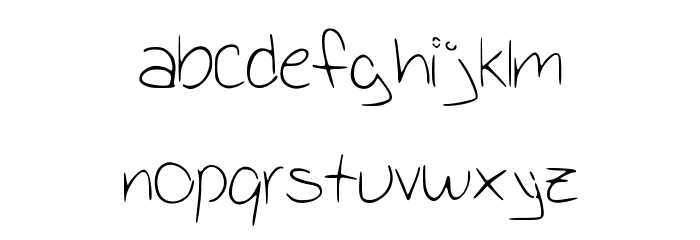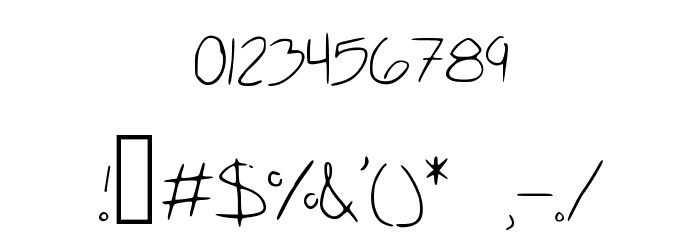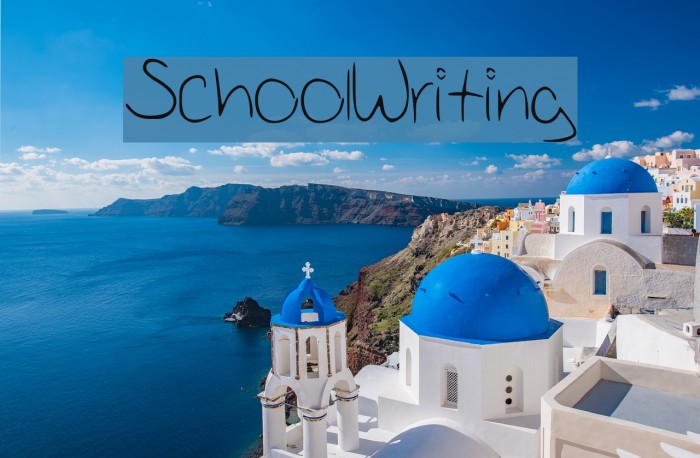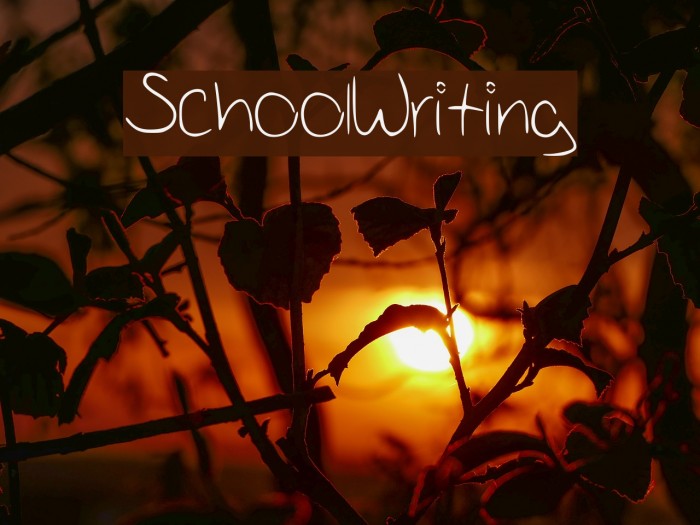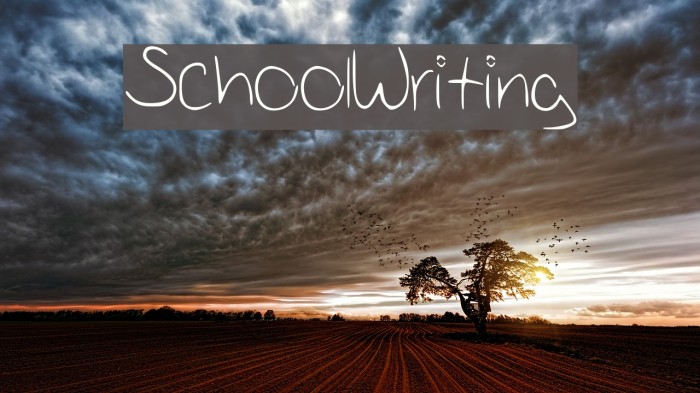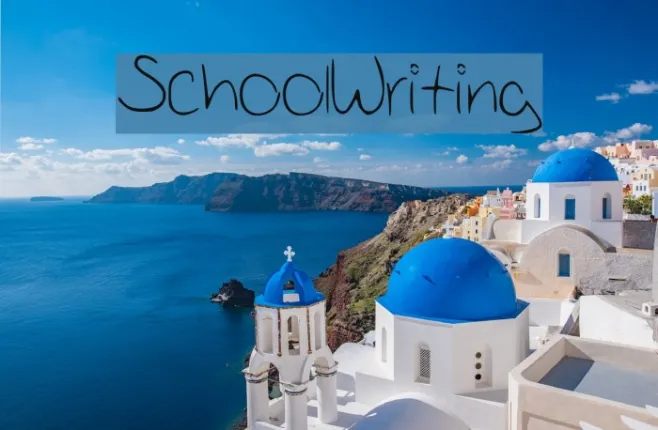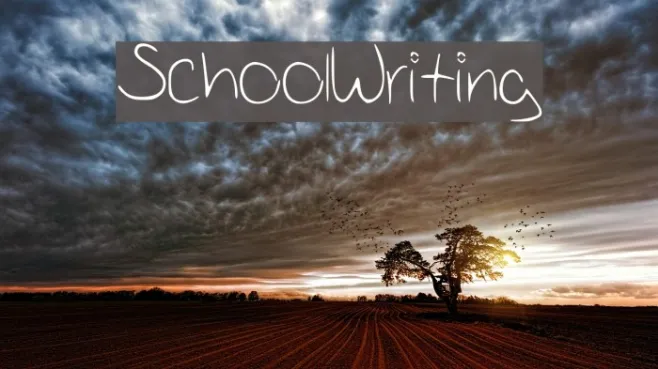
School_Writing Font
This font embodies a playful and casual handwritten style, reminiscent of school writing. The characters are slightly irregular, adding a personal and informal touch. The uppercase letters are tall and narrow, while the lowercase letters maintain a consistent flow with rounded edges. Numbers are clear and legible, matching the overall style. The special characters are creatively designed, maintaining the playful essence. This font is ideal for projects that require a friendly and approachable feel, such as children's books, educational materials, or informal invitations.
A playful, handwritten font with a casual and informal style.
- Proposed Projects: Ideal for children's books, educational materials, informal invitations, and creative projects needing a personal touch.
- Category: Handwritten
- Overall Style: Casual, Playful
- Use Case: Headlines, Informal text, Creative projects